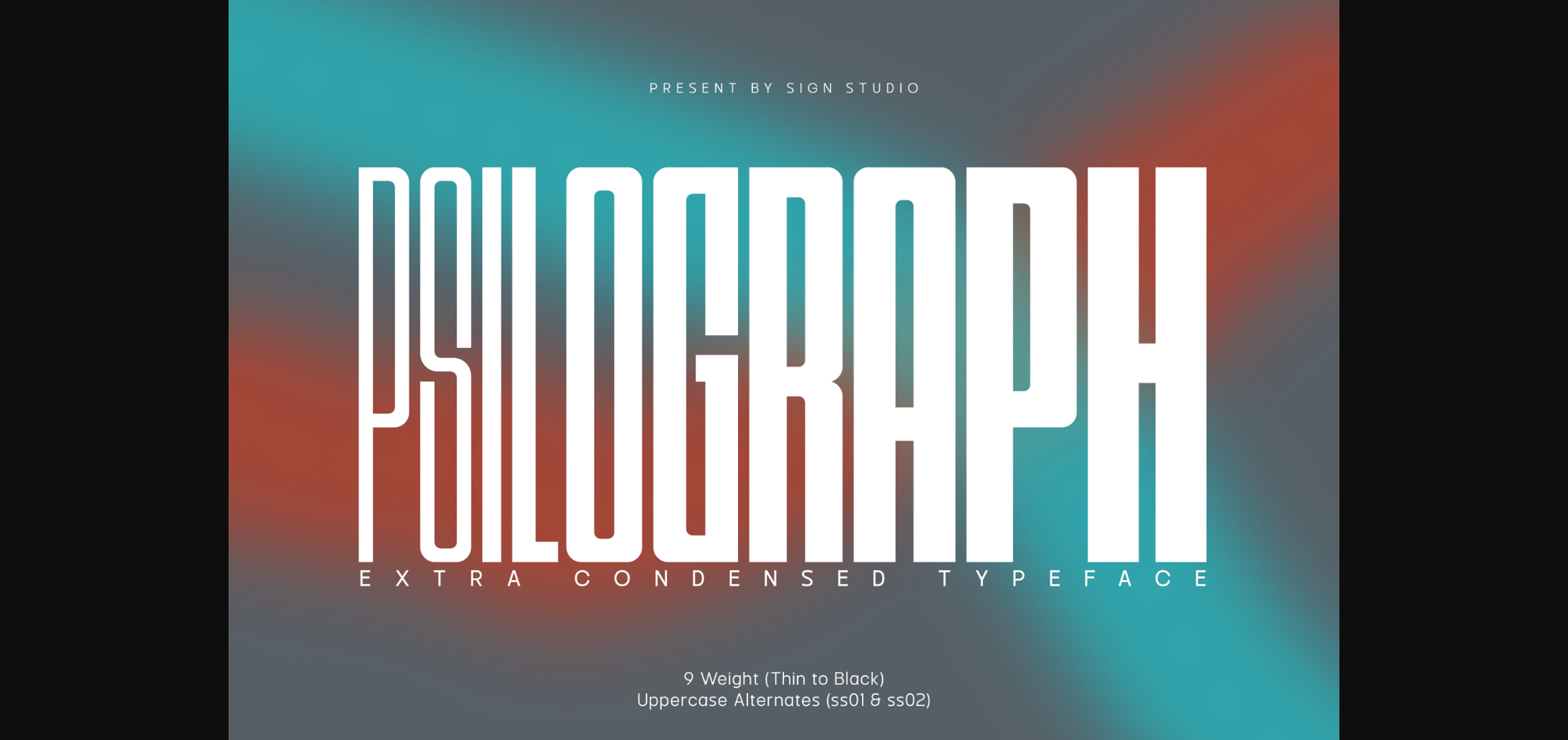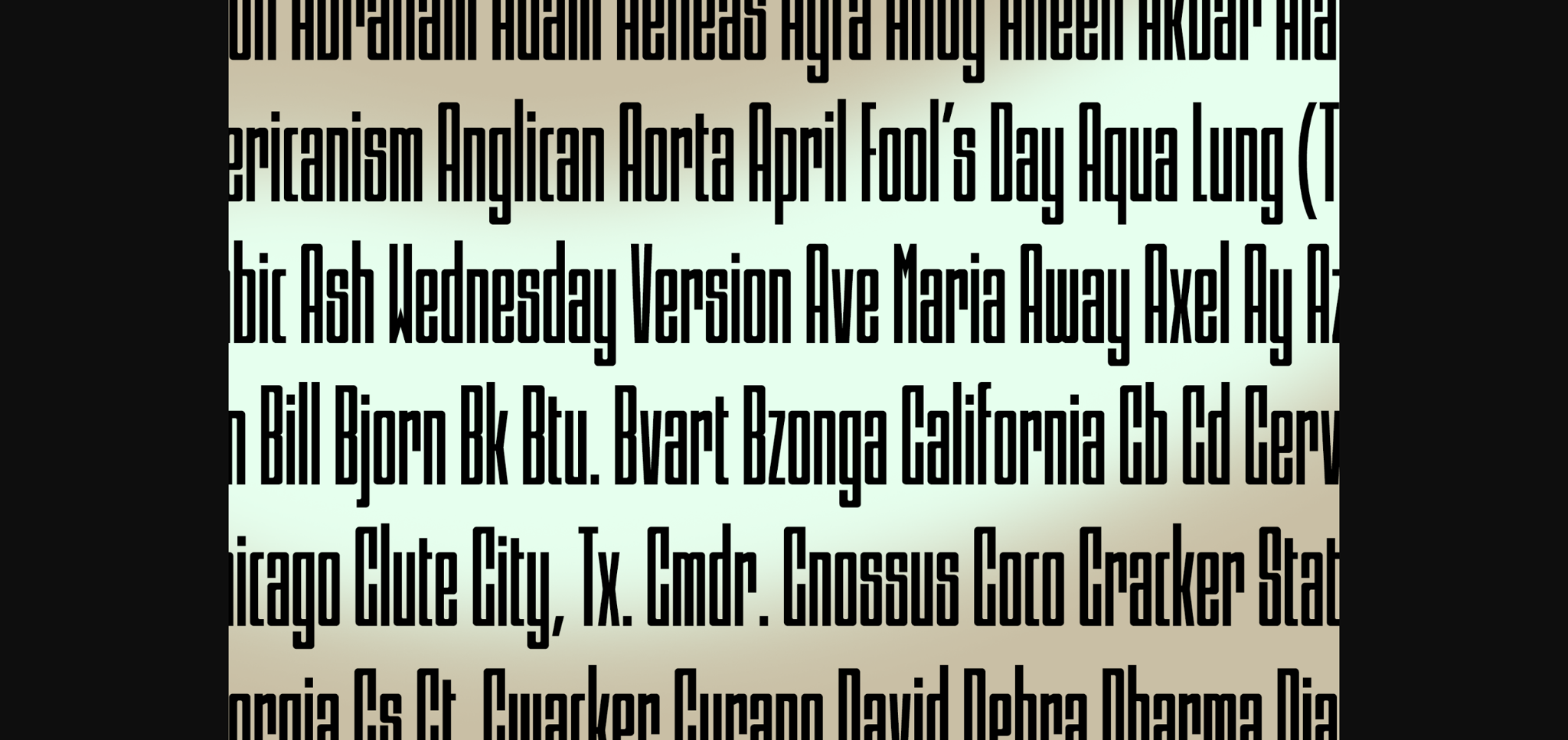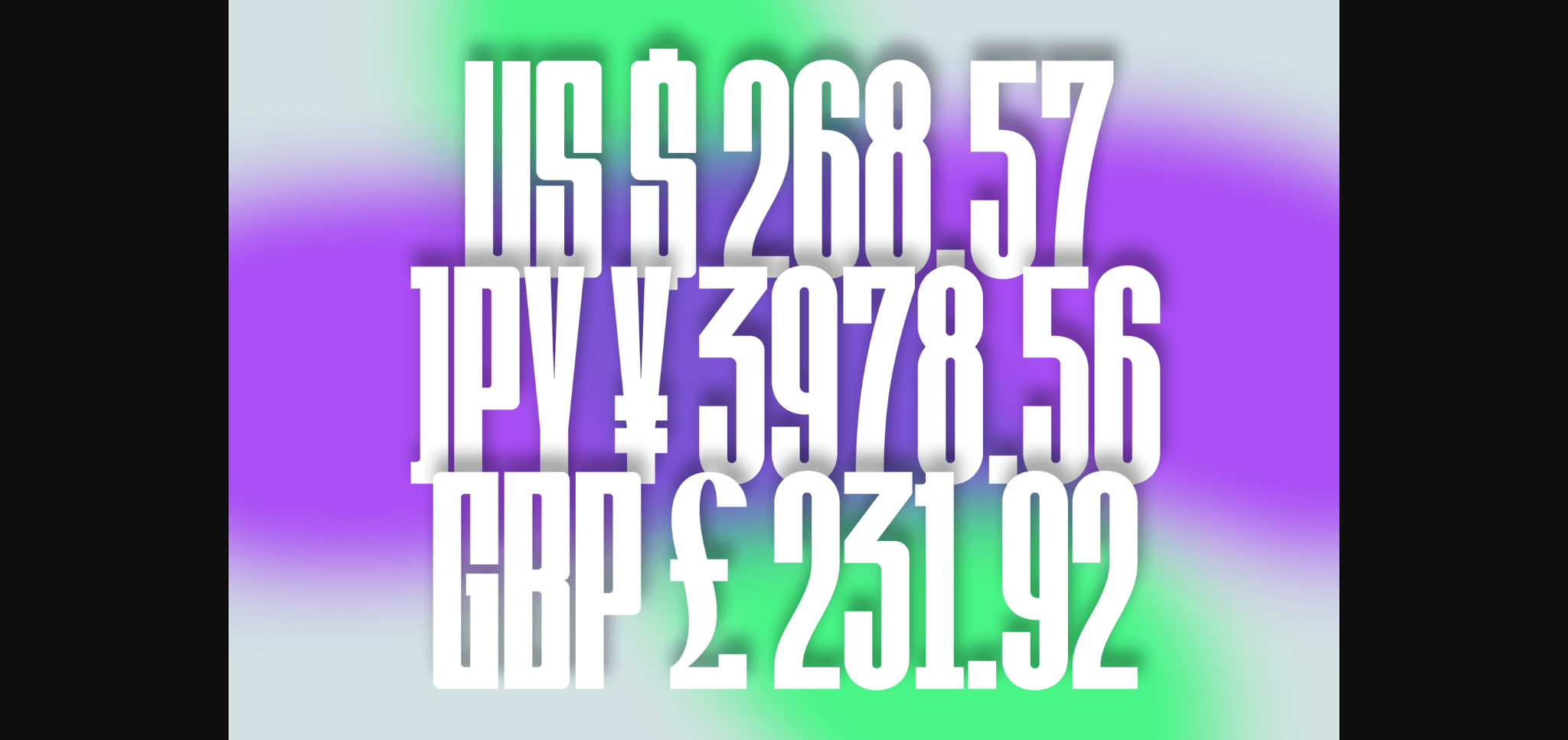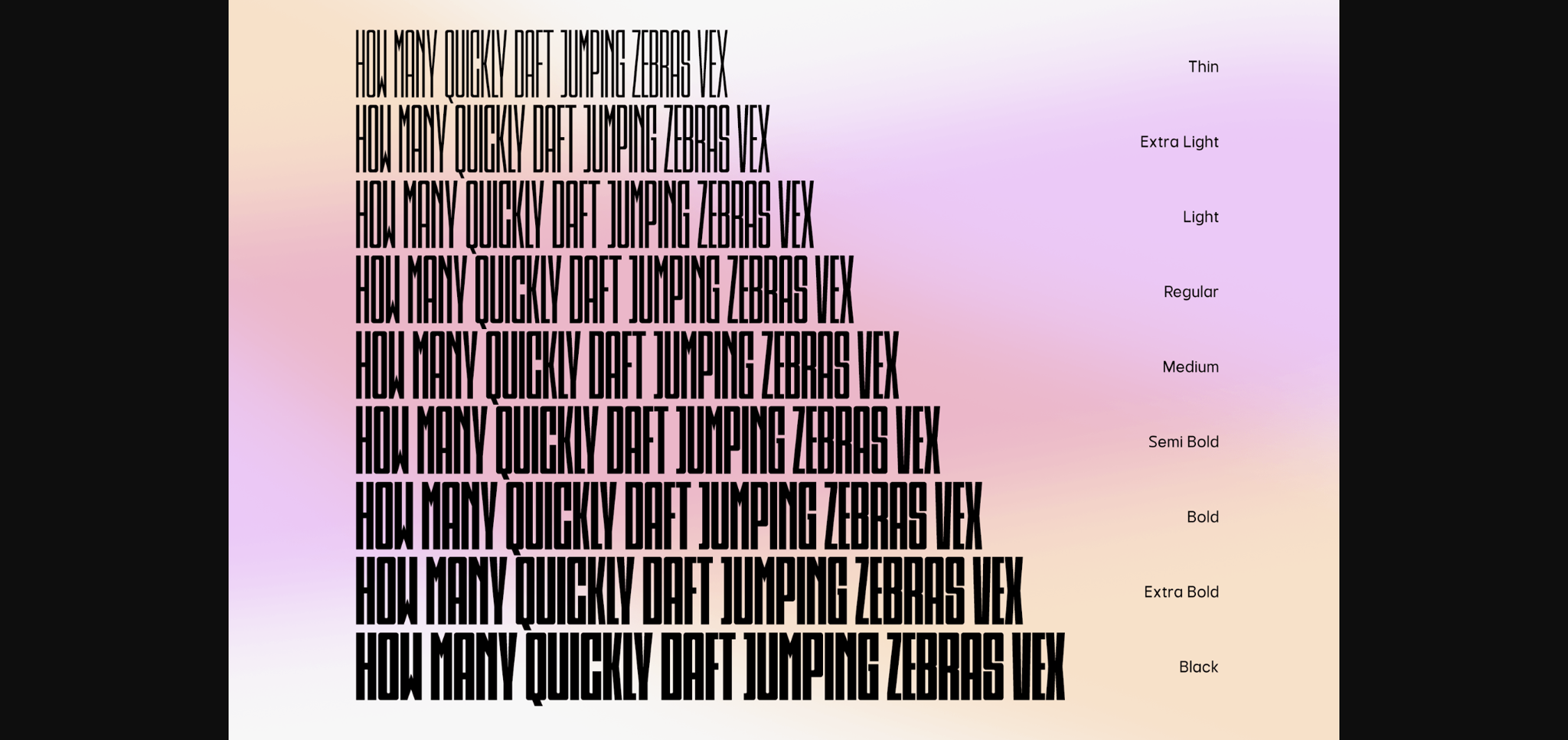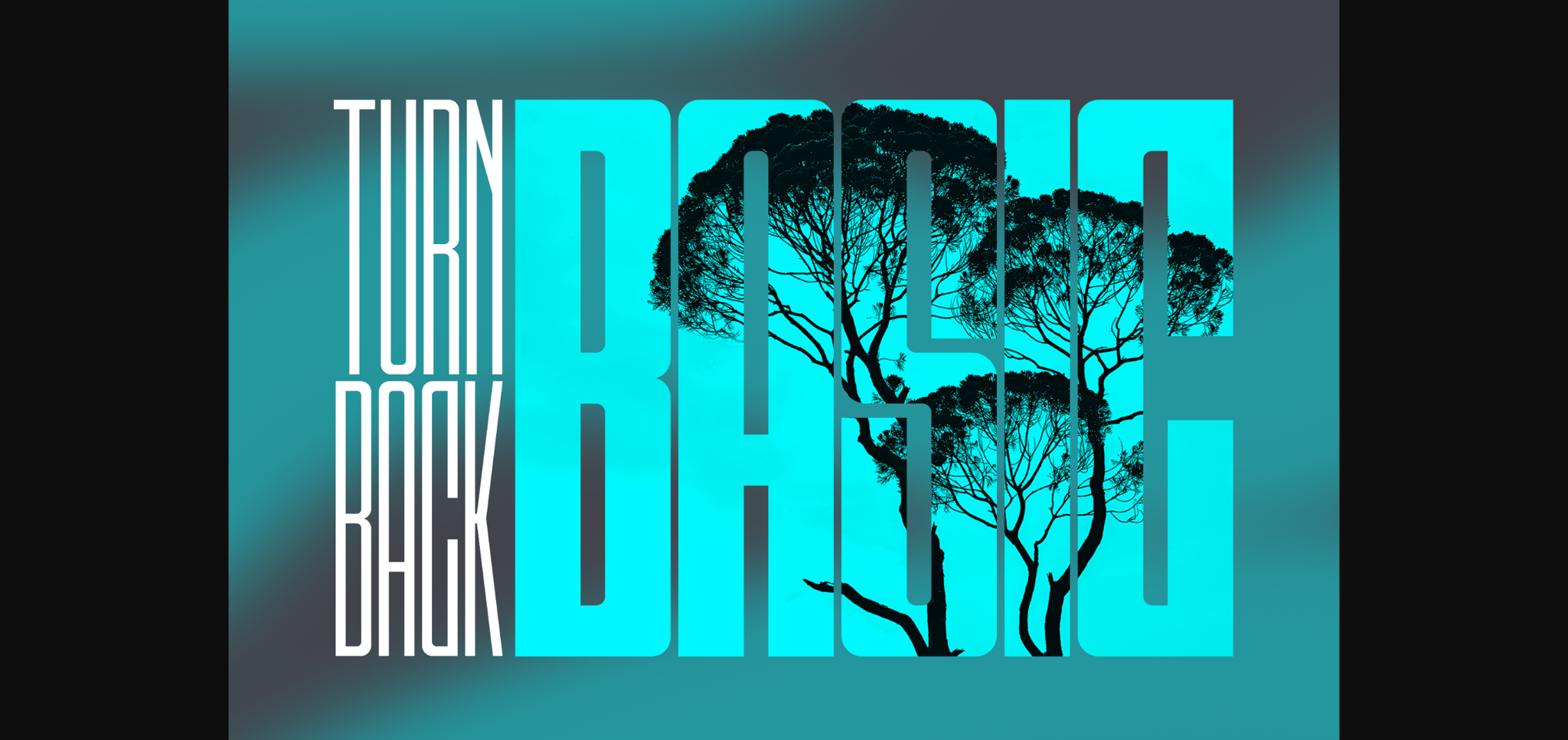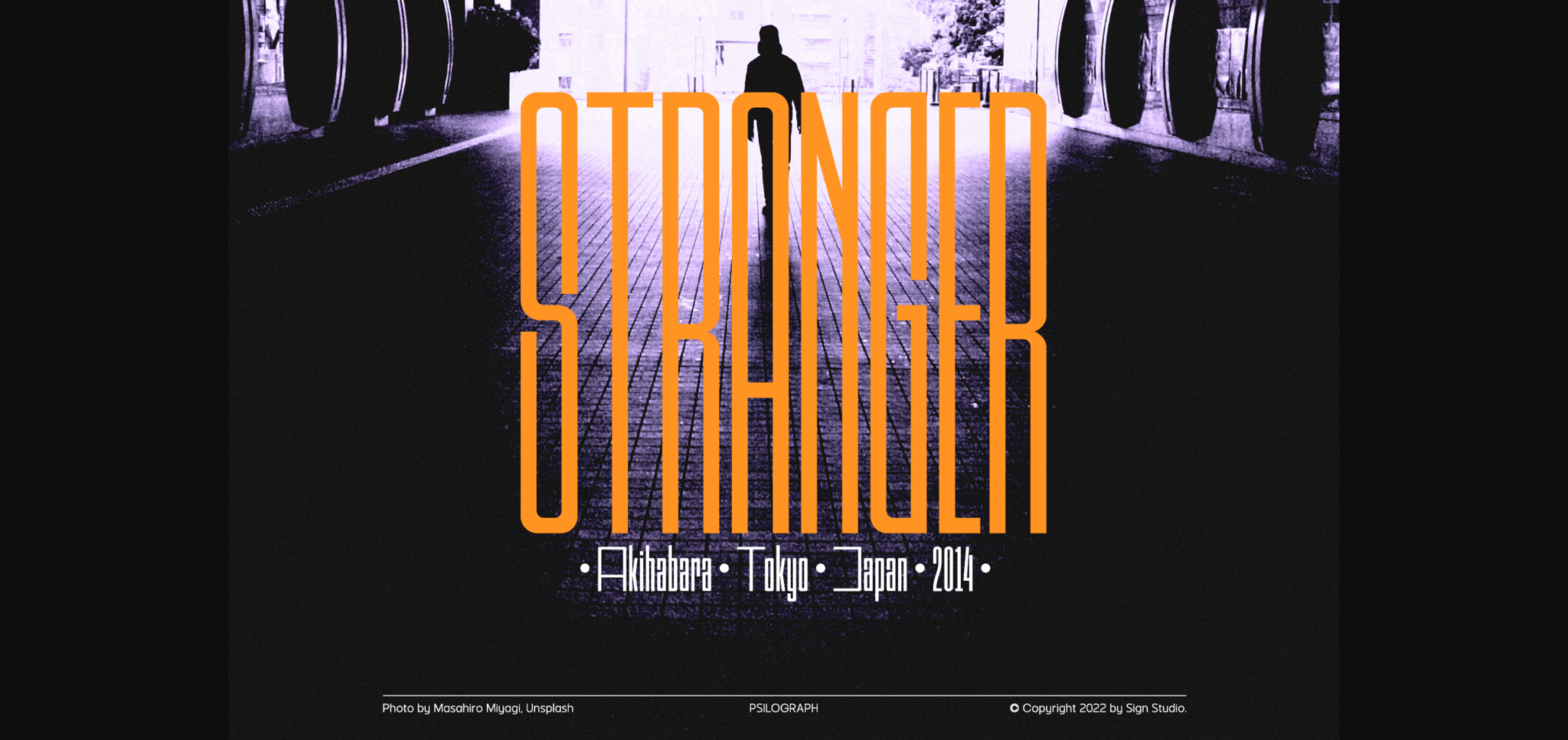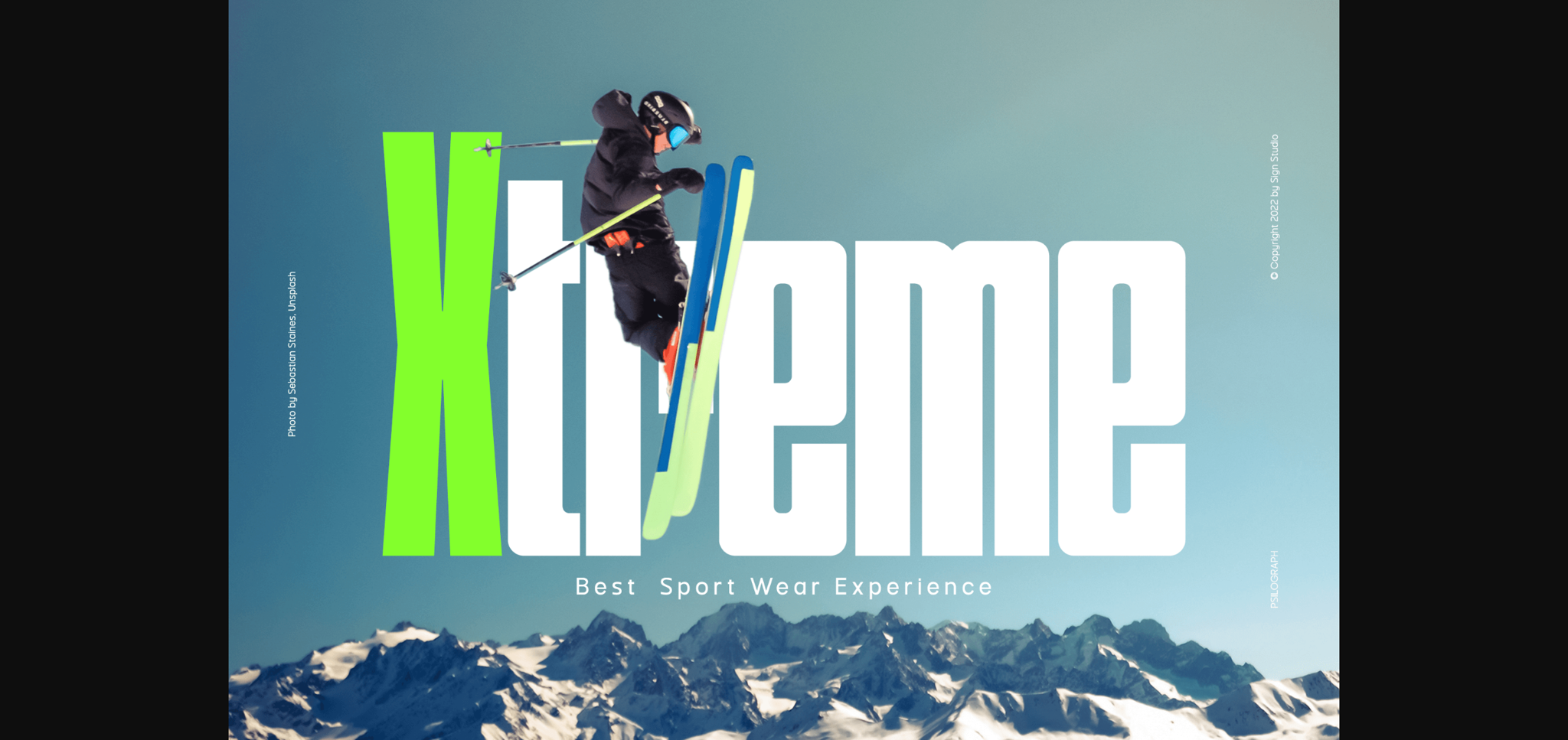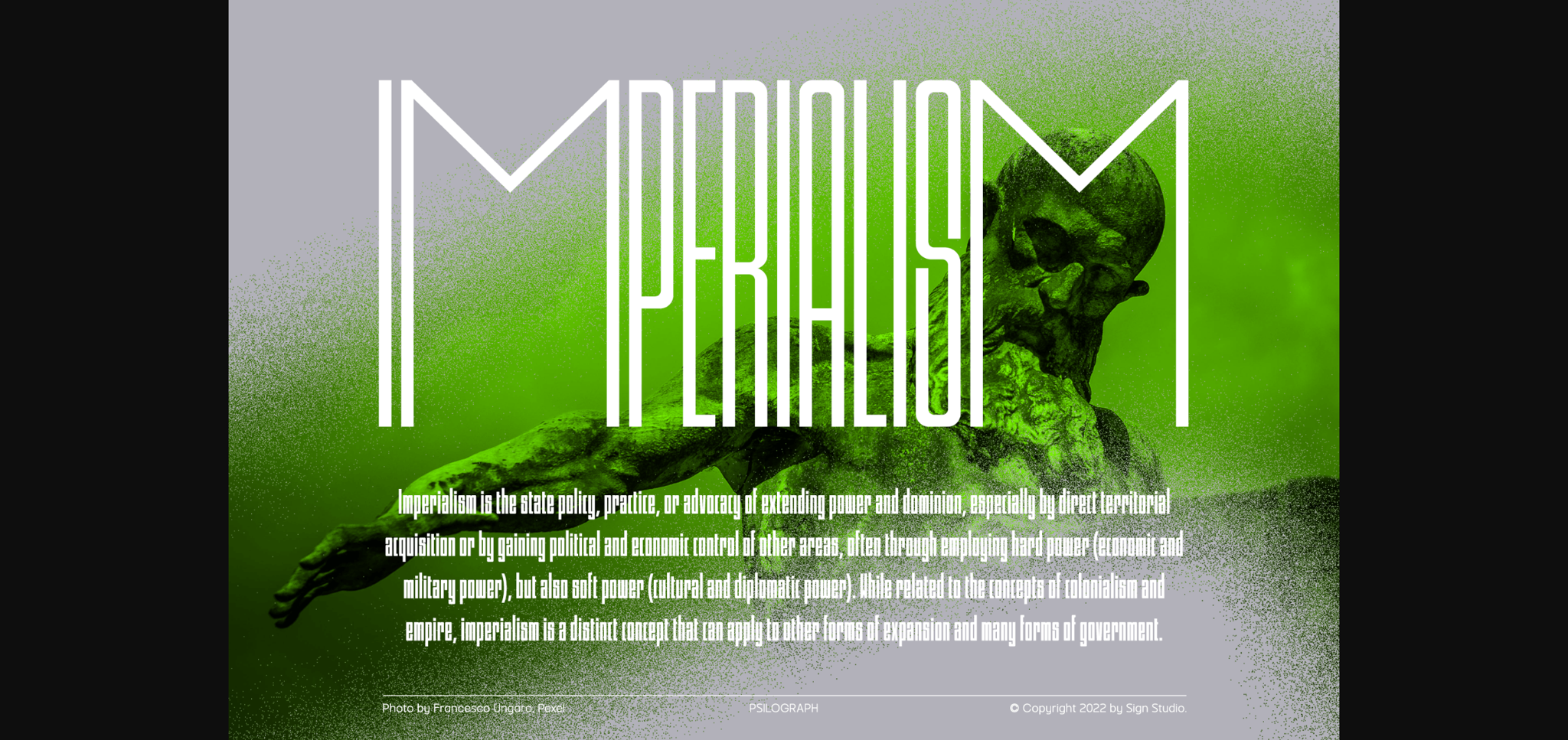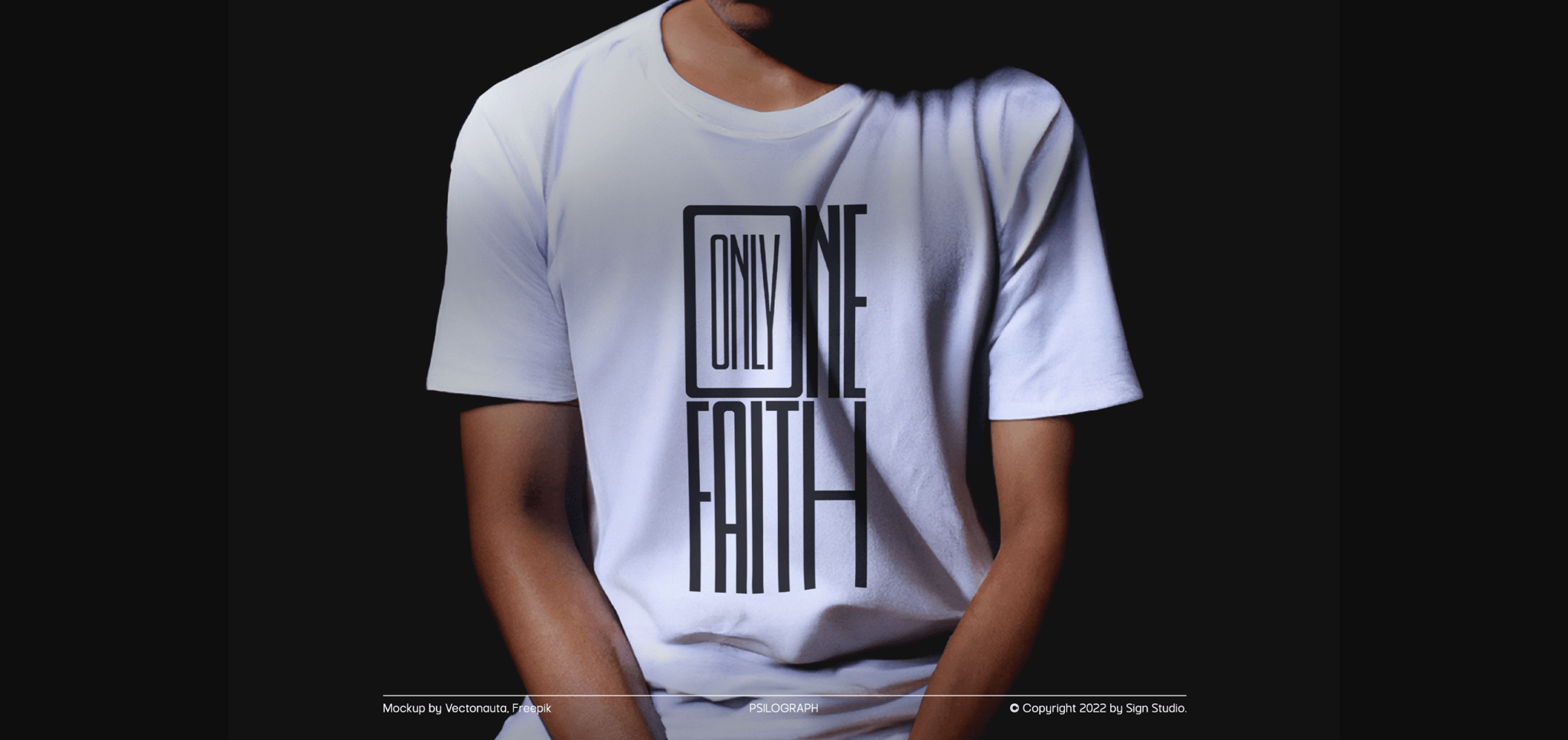
Psilograph Font
About Psilograph Font
Psilograph is a super condensed sans serif typeface. Contemporary and fresh, it is perfect for any design you wish to create. Add it to your creative projects and make them outstanding! This font is PUA encoded which means you can access all the glyphs and ligatures with ease!